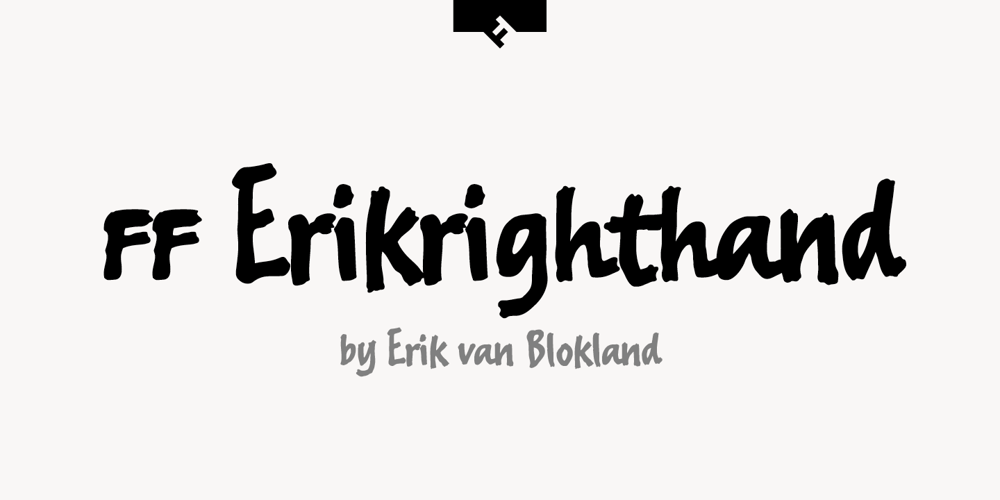
FF Erikrighthand Font Family was designed by Erik van Blokland and published by FontFont. FF Erikrighthand contains 1 styles and family package options. Dutch type designer Erik van Blokland created this script FontFont in 1990. The font is ideally suited for advertising and packaging, festive occasions, editorial and publishing as well as poster and billboards. FF Erikrighthand provides advanced typographical support with features such as ligatures, small capitals, alternate characters, case-sensitive forms, fractions, and super- and subscript characters. It comes with proportional oldstyle and tabular oldstyle figures.